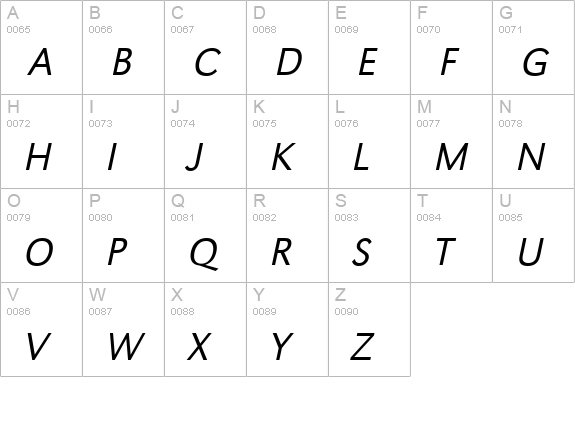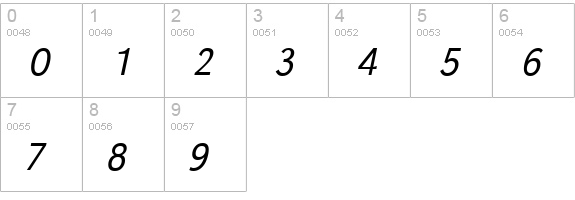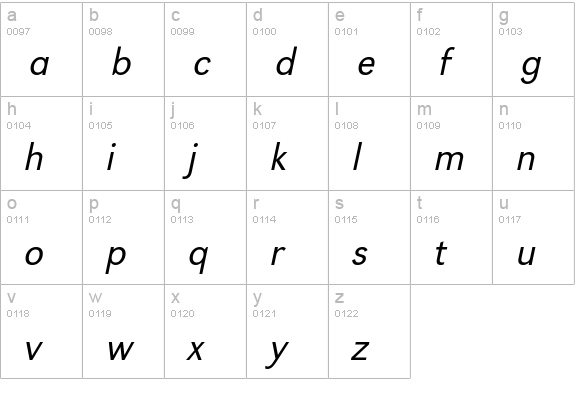
GroteskStd-Light-Italic is a refined, elegant, italic variant in the GroteskStd typeface family \xE2\x80\x94 well suited to elegant body text, refined sub-headings, and luxury branding.
GroteskStd-Light-Italic font embodies a harmonious blend of sophistication and elegance, making it an ideal choice for projects that demand a touch of refined style. Its delicate and slanted italic design adds a subtle flair to any text, enhancing readability while exuding a sense of modernity. What sets GroteskStd-Light-Italic apart is not just its aesthetic appeal, but also the fact that it is available for free download at FontsMarket.com. This means that designers, creatives, and enthusiasts alike can easily access this exquisite font without any cost, enabling them to elevate their projects with a touch of sophistication at no expense. Whether used for branding, editorial design, or digital content, GroteskStd-Light-Italic offers versatility and charm that is sure to captivate audiences. Download this font today and elevate your design with its timeless elegance.